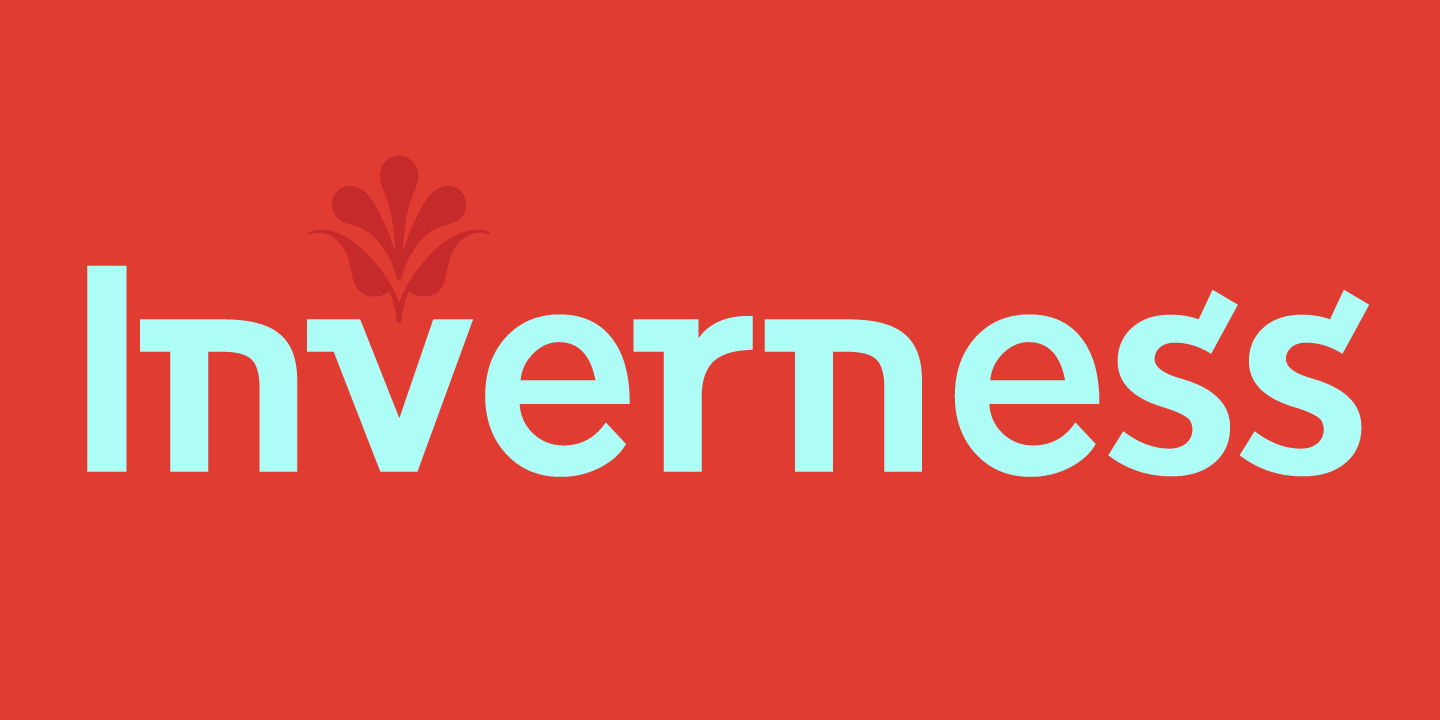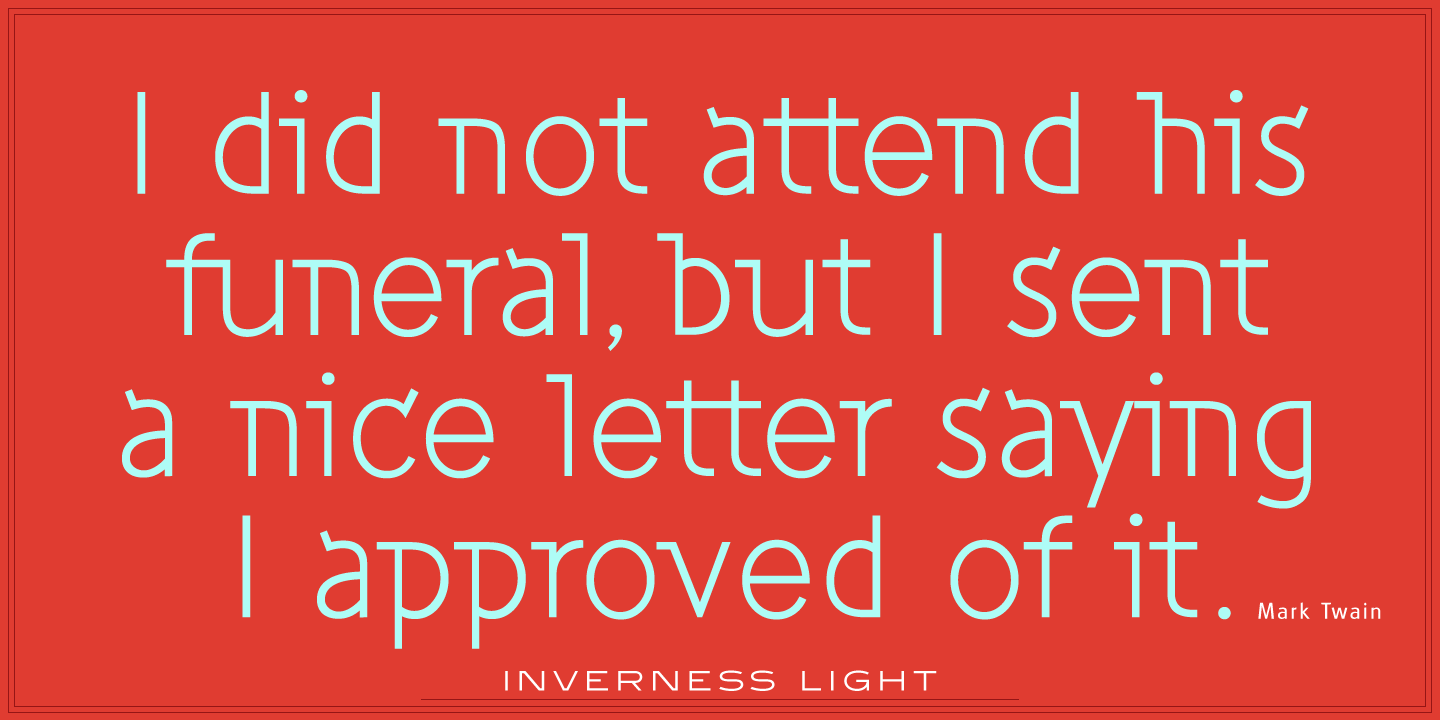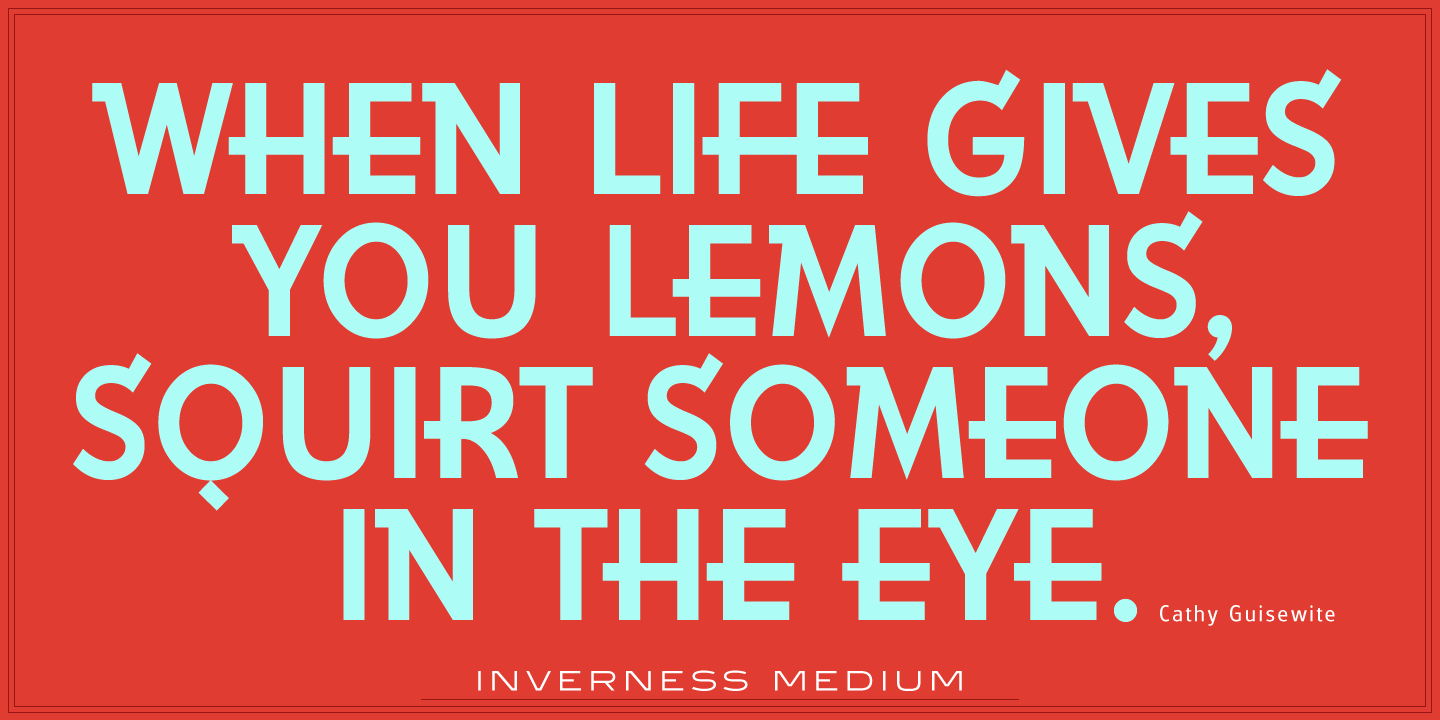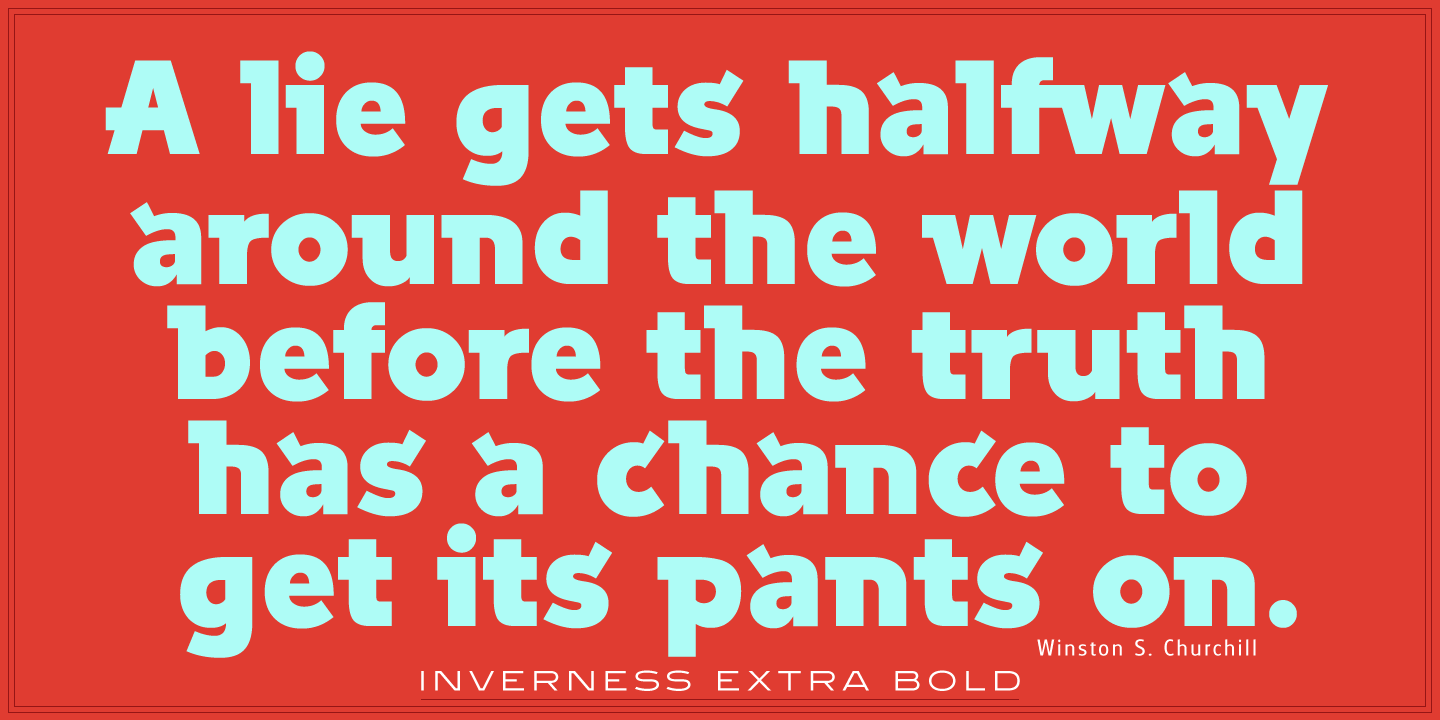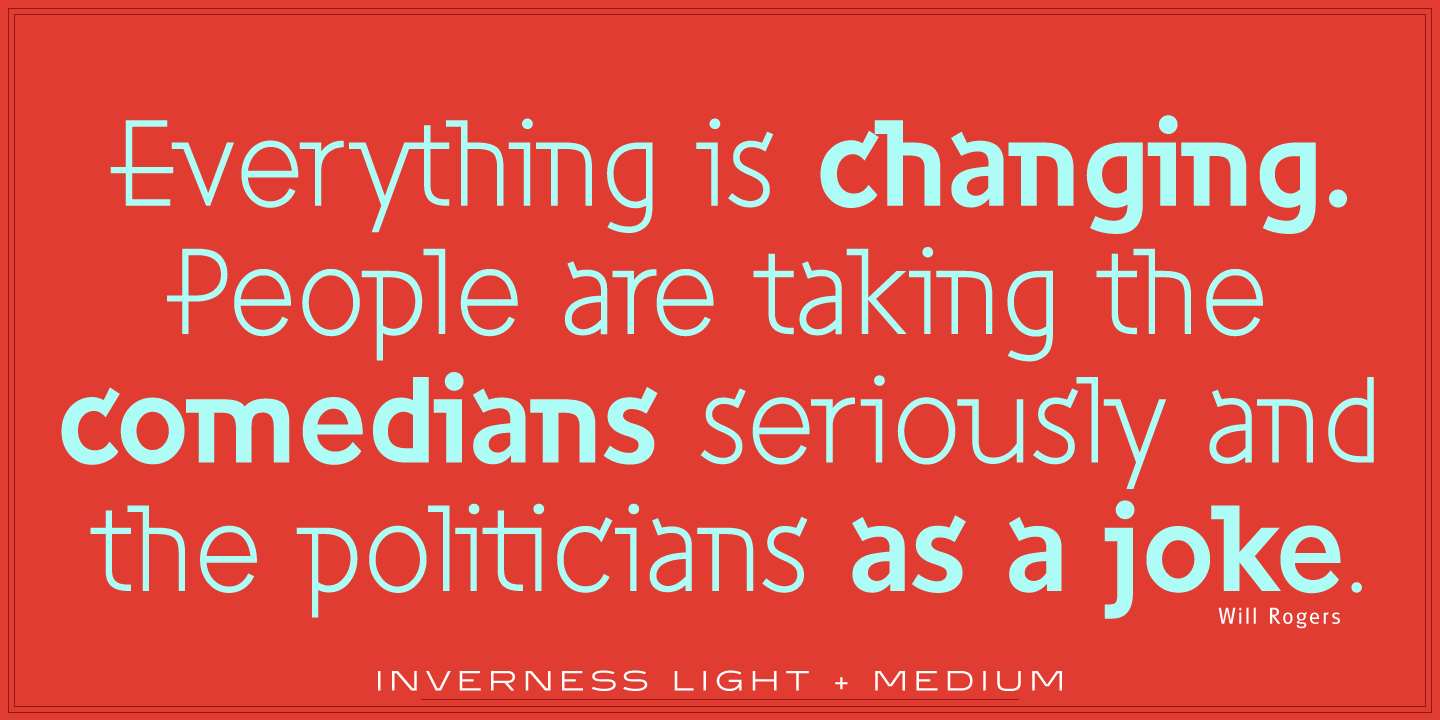
Inverness
Inverness Light
Inverness Medium
Inverness Extra Bold
Inverness is a decorative font family designed by Paul Hickson (P&P Hickson) and Steve Jackaman (ITF) exclusively for the Red Rooster Collection in 1996. In the 1930s, it was popular to take day-trips by train to the seaside in the British Isles. Agencies designed regional posters advertising these excursions; it is from one of these posters that Inverness was created. Inverness excels in headline and signage roles much like its original source. Its style is reminiscent of Art Deco posters, and evokes feelings of travel, music, and vacation.